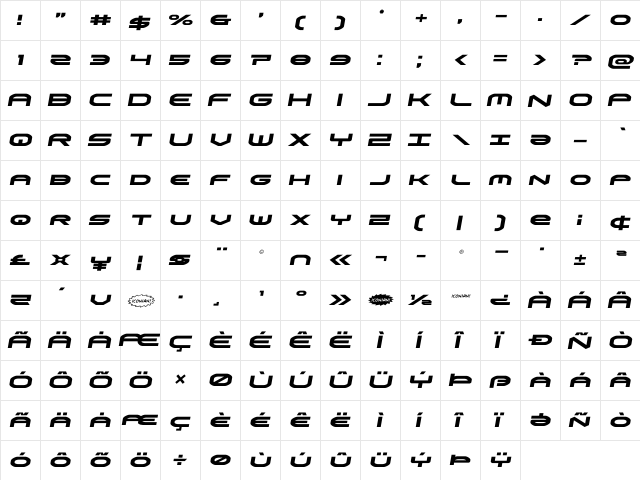
Omni Boy Semi-Italic Semi-Italic
Design Context for Omni Boy Semi-Italic Typeface
Omni Boy Semi-Italic offers clean, dependable letterforms without strong stylistic allegiance, making it a practical choice for designers who need flexibility. The slanted form adds forward momentum and visual energy.
Pro Tip: Try Omni Boy Semi-Italic for annotation and caption copy alongside an upright companion — the contrast in angle creates a dynamic but ordered typographic system.